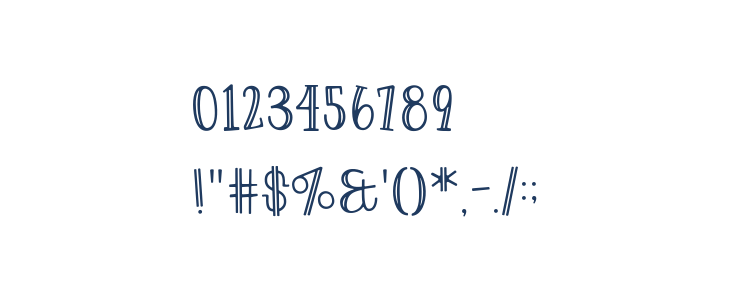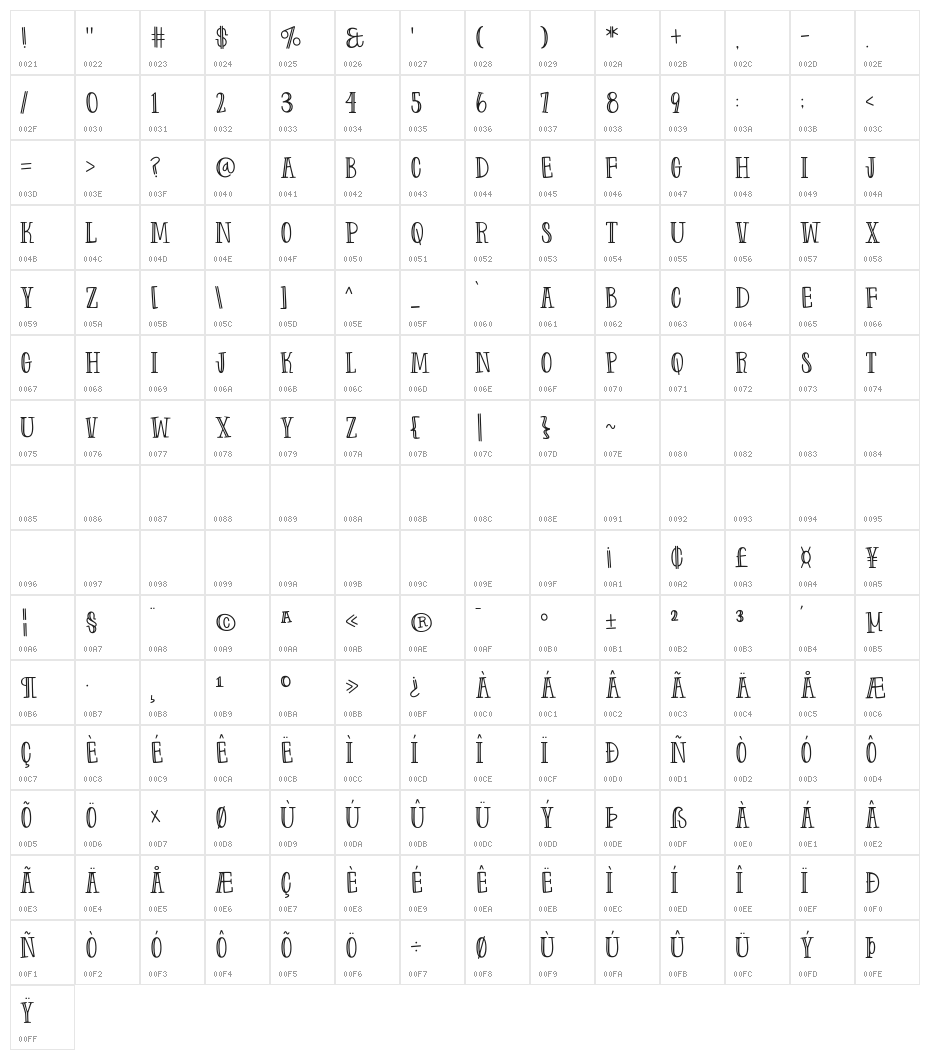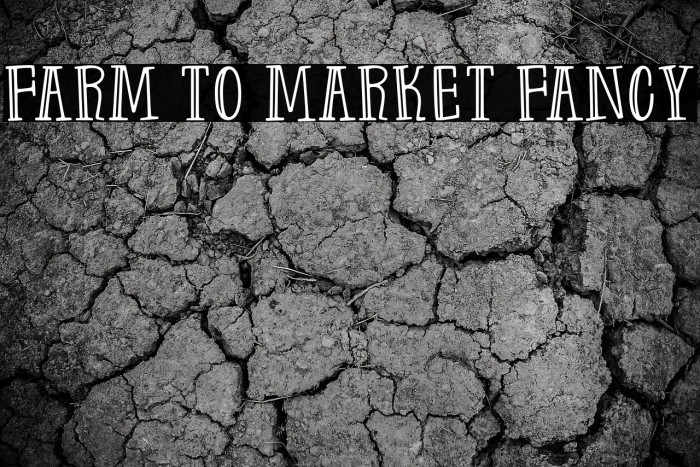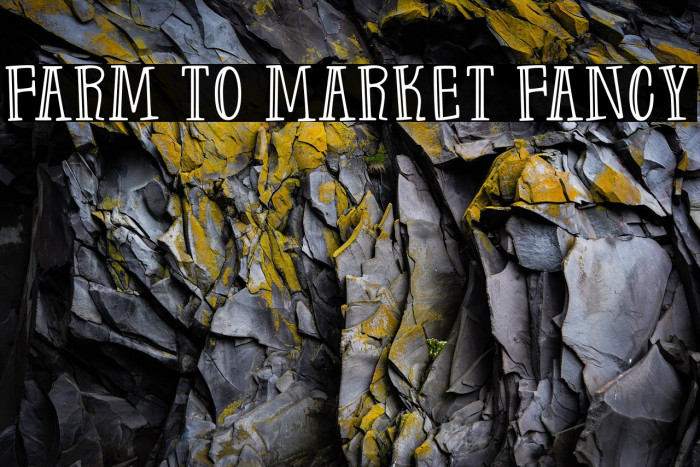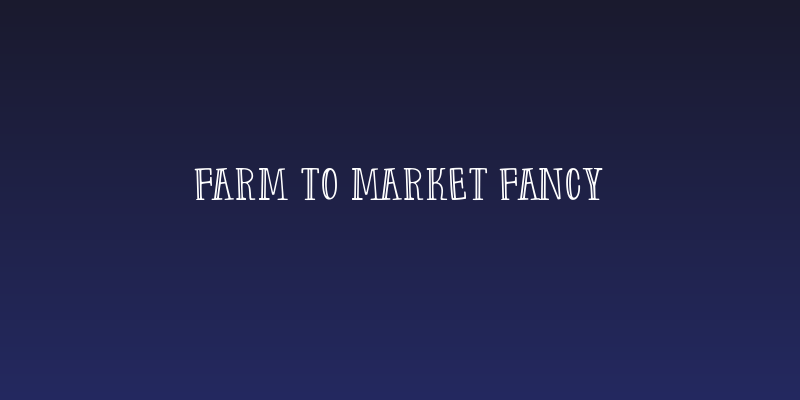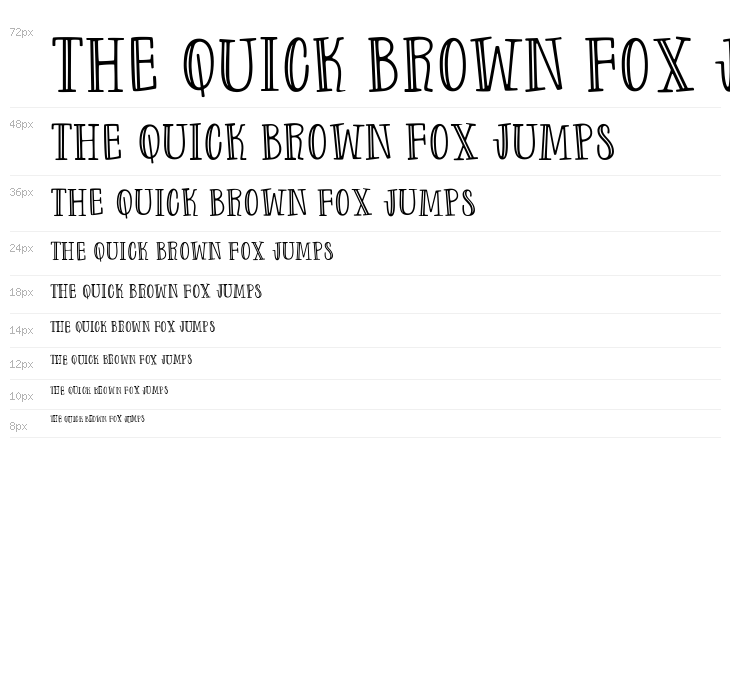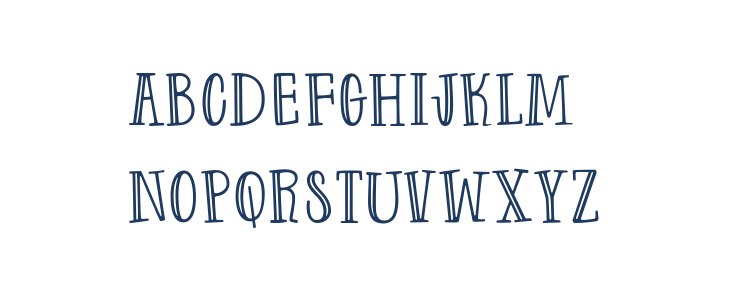
Farm to Market Fancy Font
Farm to Market Fancy Description
This font features a playful and whimsical style, characterized by its tall, narrow letters with slightly exaggerated serifs. The strokes are consistent in width, giving it a uniform appearance, while the slight curvature in the lines adds a touch of elegance. The uppercase and lowercase letters maintain a cohesive look, with the uppercase being more pronounced. Numbers and special characters are designed to match the overall aesthetic, making it versatile for various uses. The font's unique charm makes it suitable for creative projects that require a touch of personality.
| Overall Style | Whimsical |
| Proposed Projects | Ideal for children's books, playful branding, event invitations, and creative posters. |